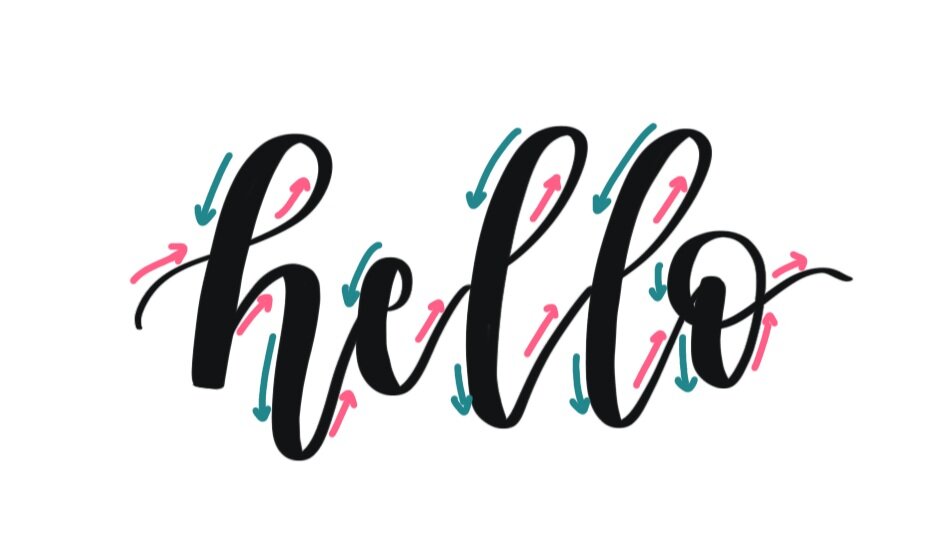
Modern Calligraphy: Upstrokes and Downstrokes
/What makes calligraphy look the way it does? The key is the upstrokes and downstrokes.
What’s an upstroke?
When you’re writing and forming letters, every time your pen goes up on the page is called an upstroke. Upstrokes are done with light pressure and should be thinner than your downstrokes.
This is what an upstroke looks like:
What’s a downstroke?
Likewise, every time your pen comes down on the page is called a downstroke. These are done with heavier pressure and should be thicker.
This is what a downstroke looks like:
The juxtaposition between the thin upstrokes and thick downstrokes is what gives modern calligraphy its signature look. There’s many ways to achieve this by using pressure - traditionally with a dip pen (which you can learn about in one of my Sip & Script classes!), by using a brush pen or even a pencil. Try to out with a pencil - use heavier pressure on your downstrokes and lighter pressure on your upstrokes, and you should see a subtle difference as you get the hang of it. You can also do fauxligraphy using any pen or marker to manually thicken your downstrokes to achieve a similar look. For these examples, I’m using my iPad + Apple Pencil, which is pressure-sensitive, and the Procreate app, to letter digitally.
Here’s how you use a thin upstroke and thick downstroke to form a letter:
Now, let’s put it together to form a word:
See how the thin upstroke turns into the thick downstroke to give the word that fancy calligraphy look?
Understanding the difference between upstrokes and downstrokes is the most basic part of learning modern calligraphy. Once you get this down, there’s no limit to what you can do! Happy lettering!